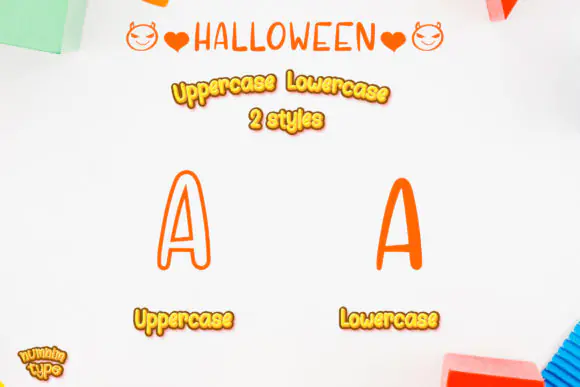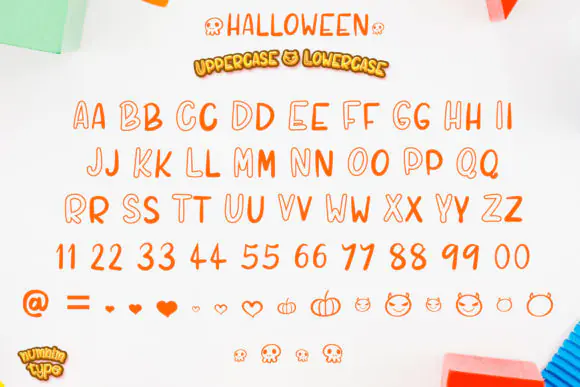
Create clean, friendly, and refreshing Halloween designs with Halloween Font, a simple and cool handwritten font made for creative seasonal projects. This font has a casual handmade style that gives your designs a warm, approachable, and playful look.
Halloween Font is perfect for projects that need a softer and more friendly Halloween feeling instead of a dark horror style. It works beautifully for Halloween party invitations, greeting cards, classroom designs, kids’ Halloween projects, t-shirt designs, mugs, stickers, posters, banners, printable wall art, social media graphics, labels, packaging, and DIY craft projects.
Its simple handwritten appearance makes it easy to use across many design types, especially when you want your Halloween typography to feel cute, clear, fun, and visually refreshing.